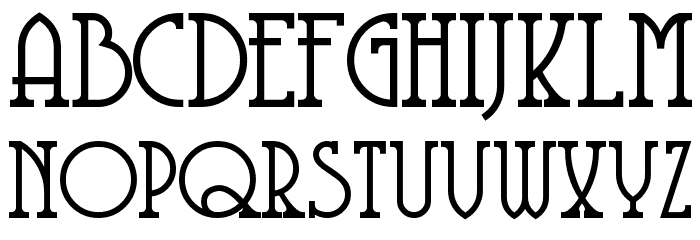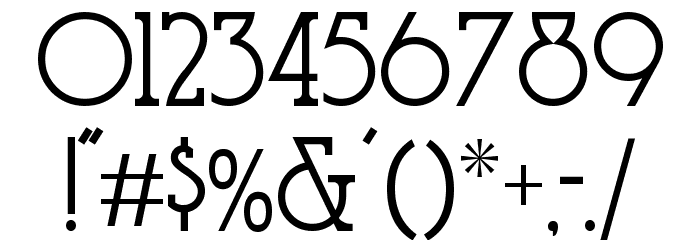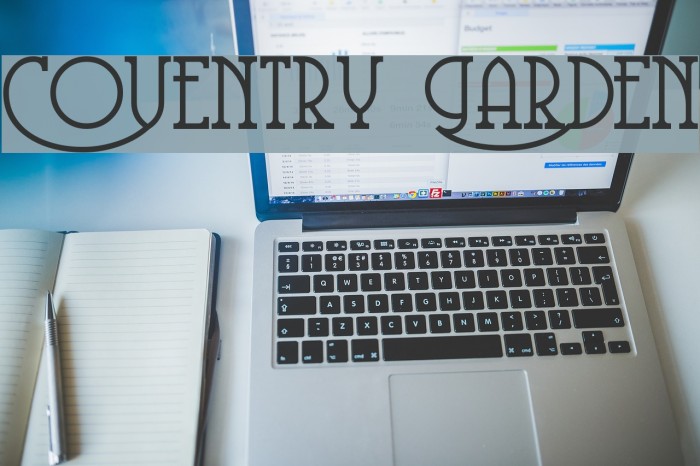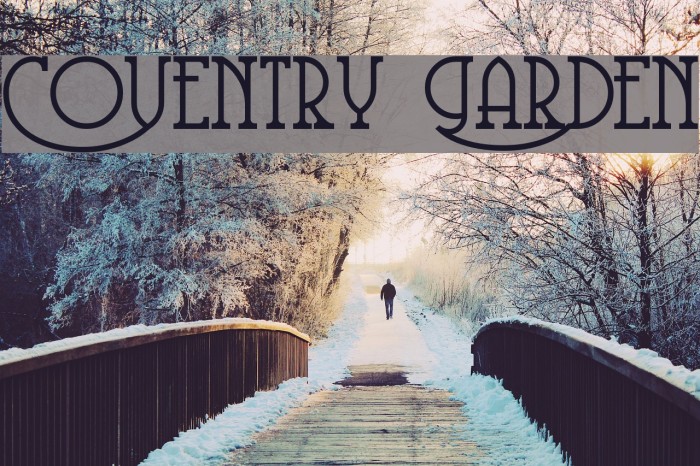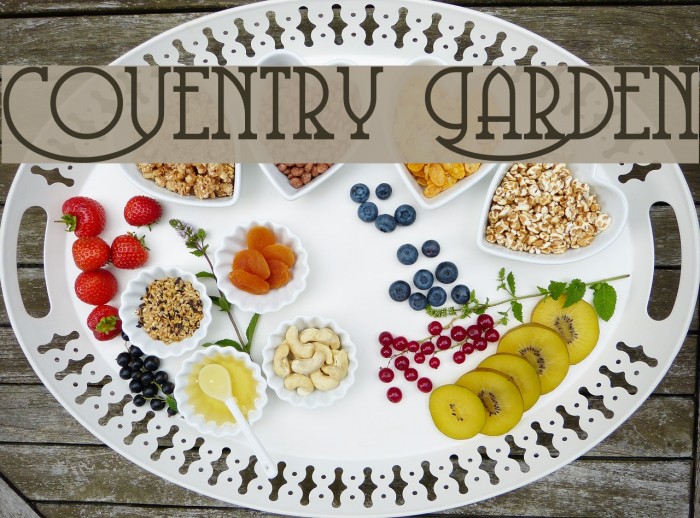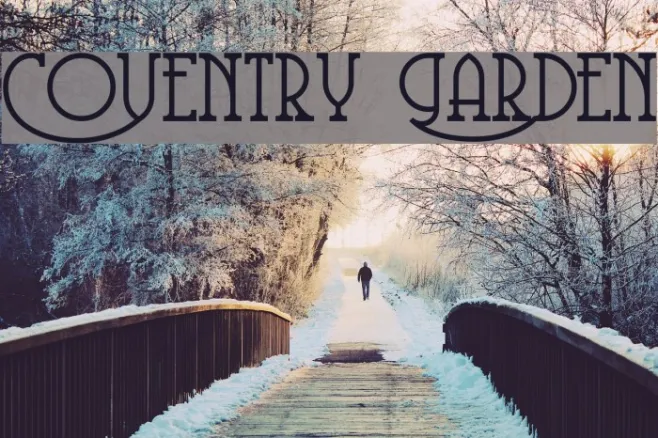
Coventry Garden Font
This font features a unique blend of elegance and boldness, characterized by its intricate and decorative uppercase letters with swirling embellishments. The lowercase letters maintain a more straightforward yet stylish appearance, offering a balance between complexity and readability. The numerals are bold and clear, ensuring easy legibility. Special characters are designed with a touch of flair, complementing the overall aesthetic. The font's design is reminiscent of vintage styles, making it suitable for projects that require a touch of classic sophistication.
A decorative and elegant font with vintage flair, featuring intricate uppercase letters and bold numerals.
- Proposed Projects: Ideal for wedding invitations, vintage-themed posters, book covers, and branding that requires a classic touch.
- Overall Style: Vintage